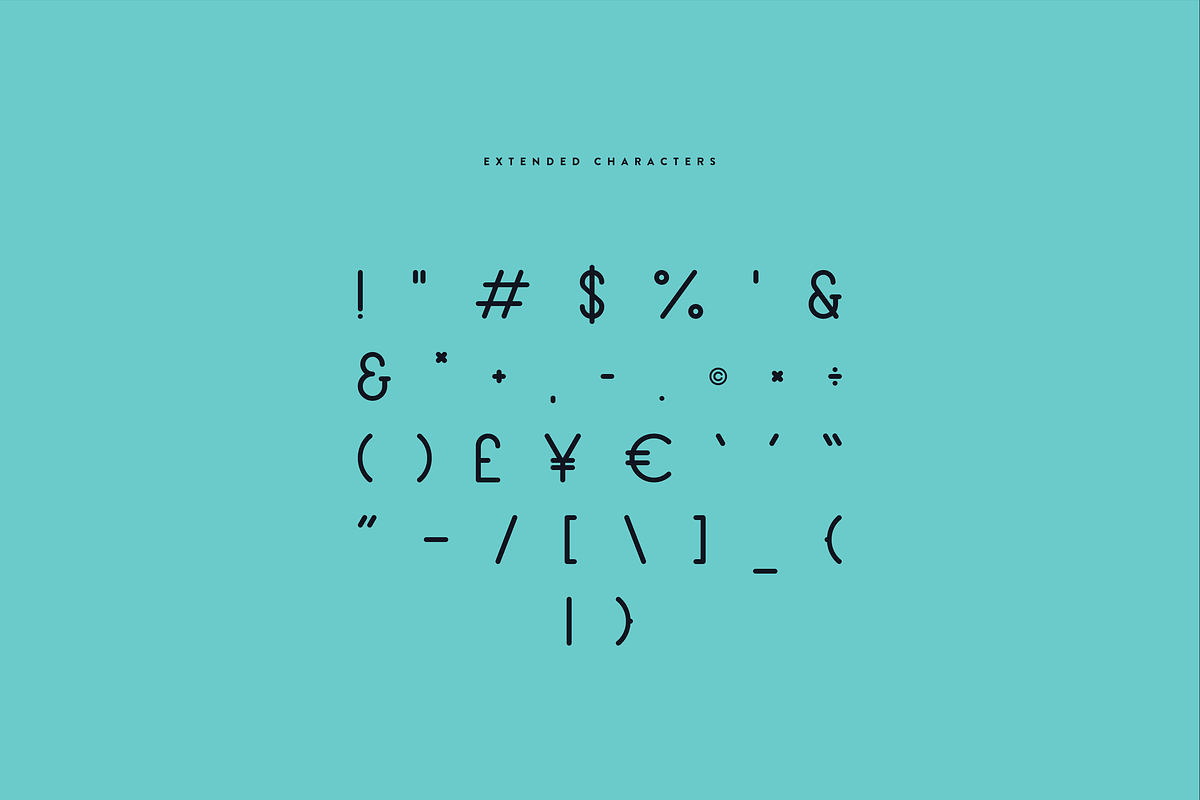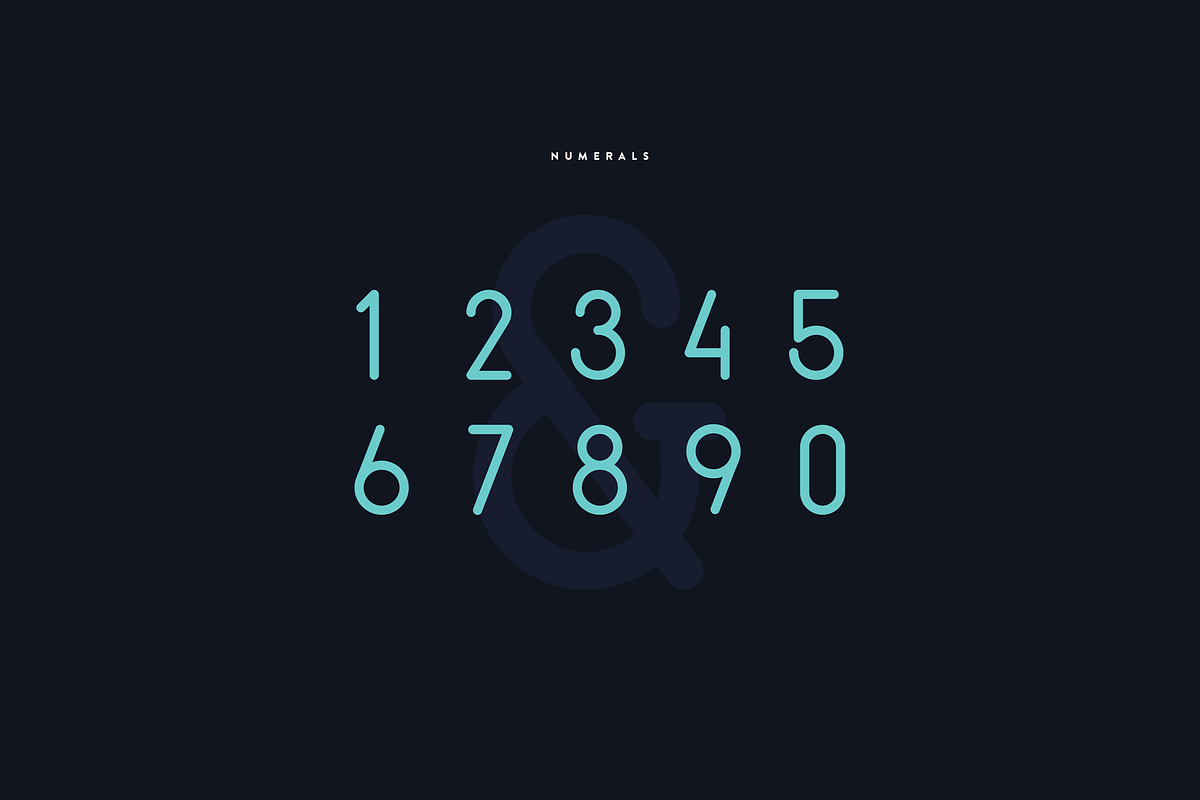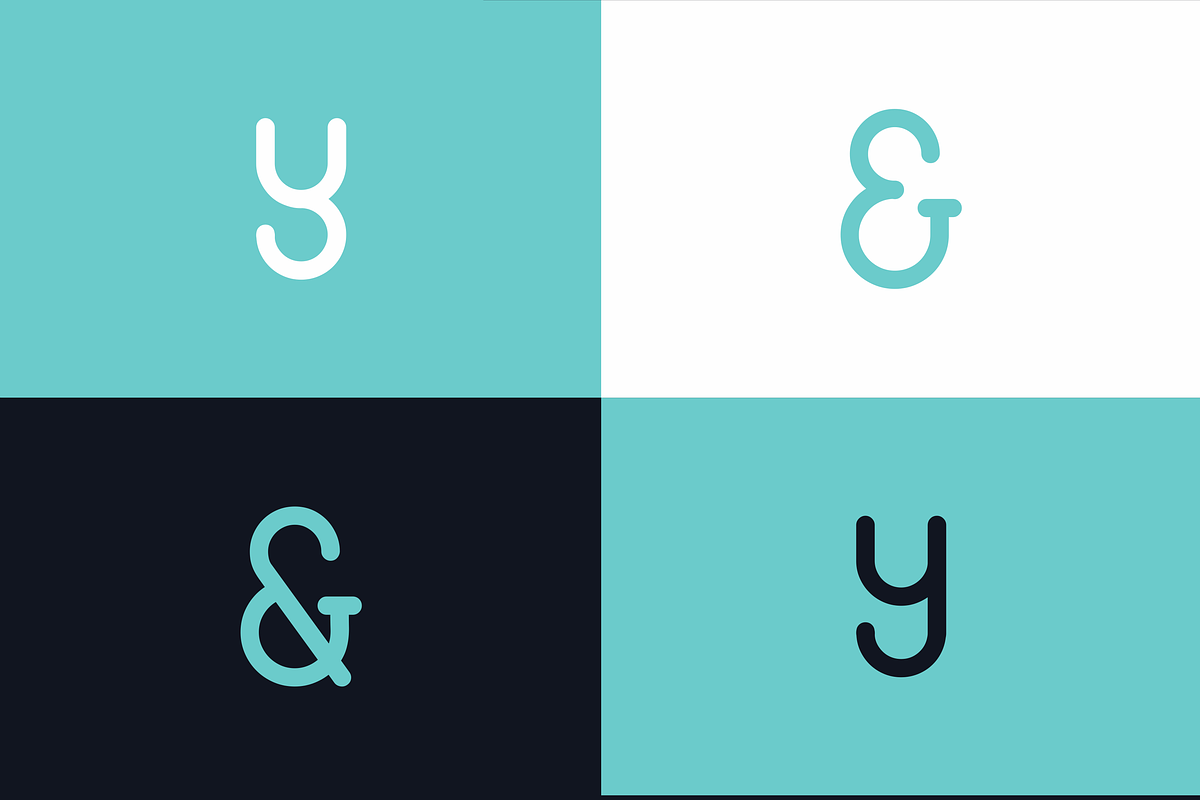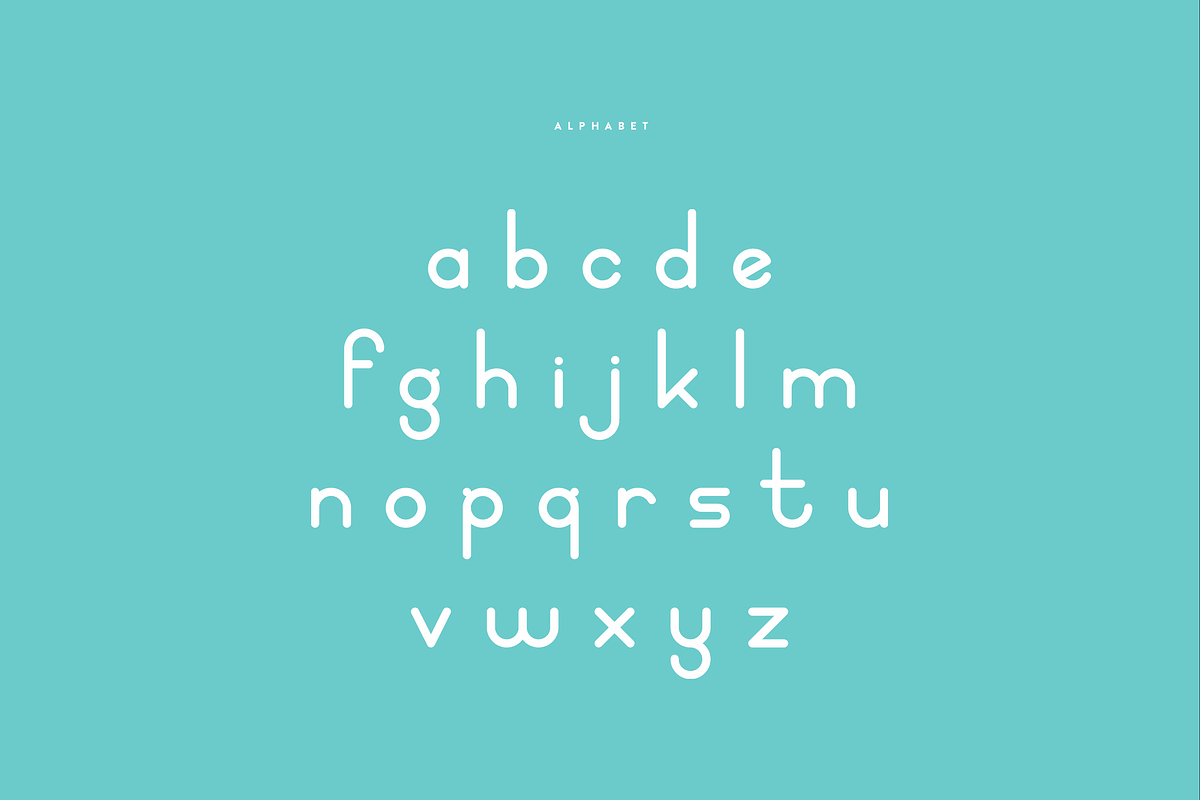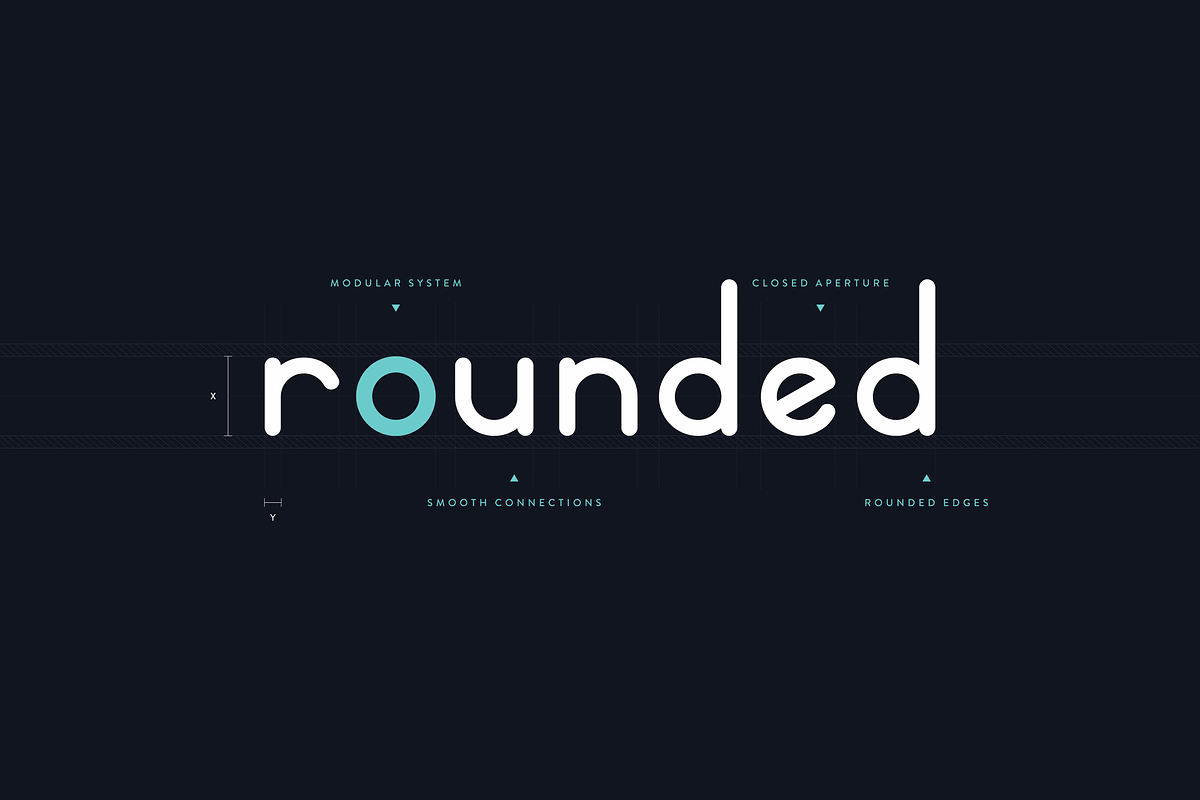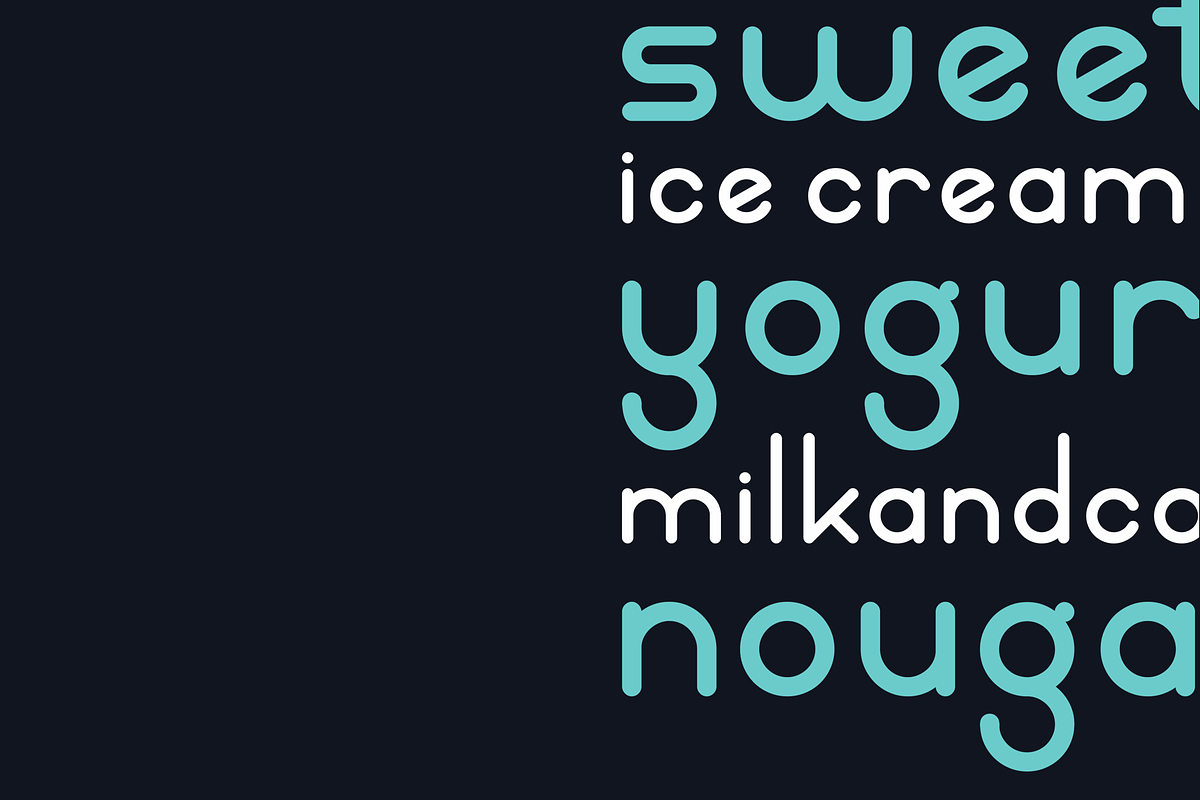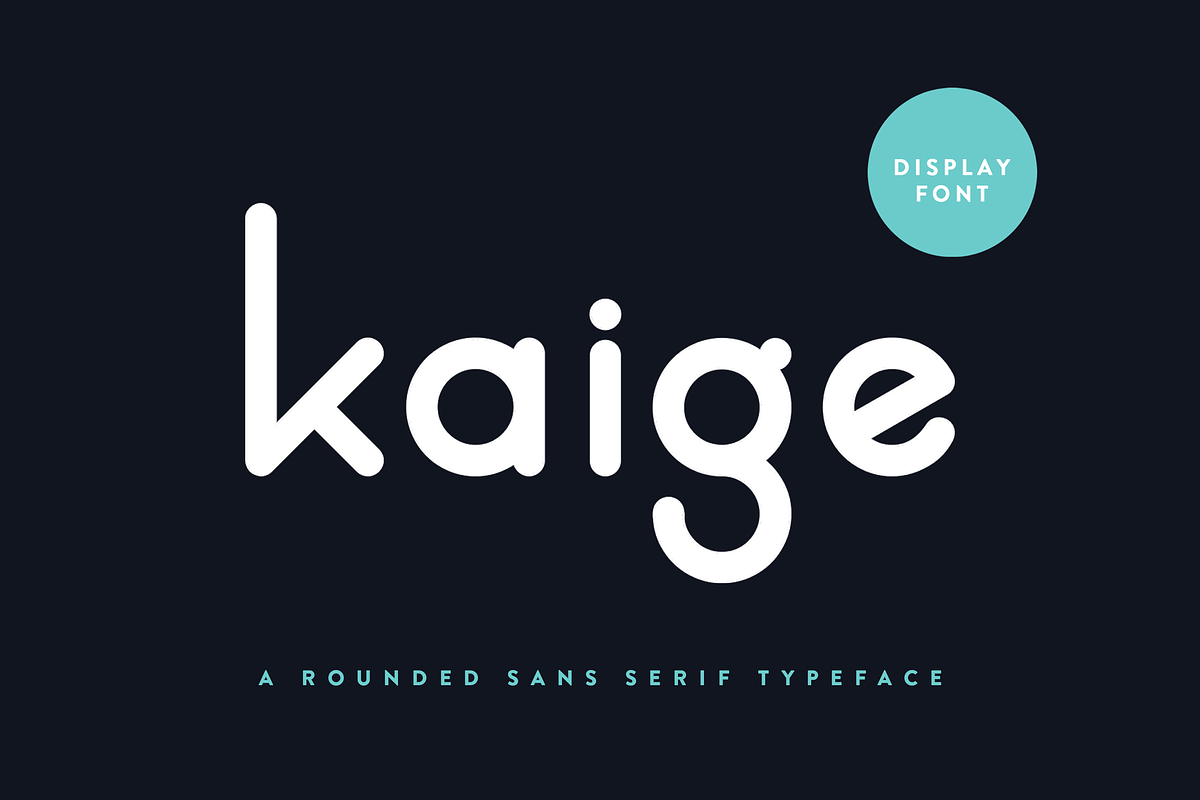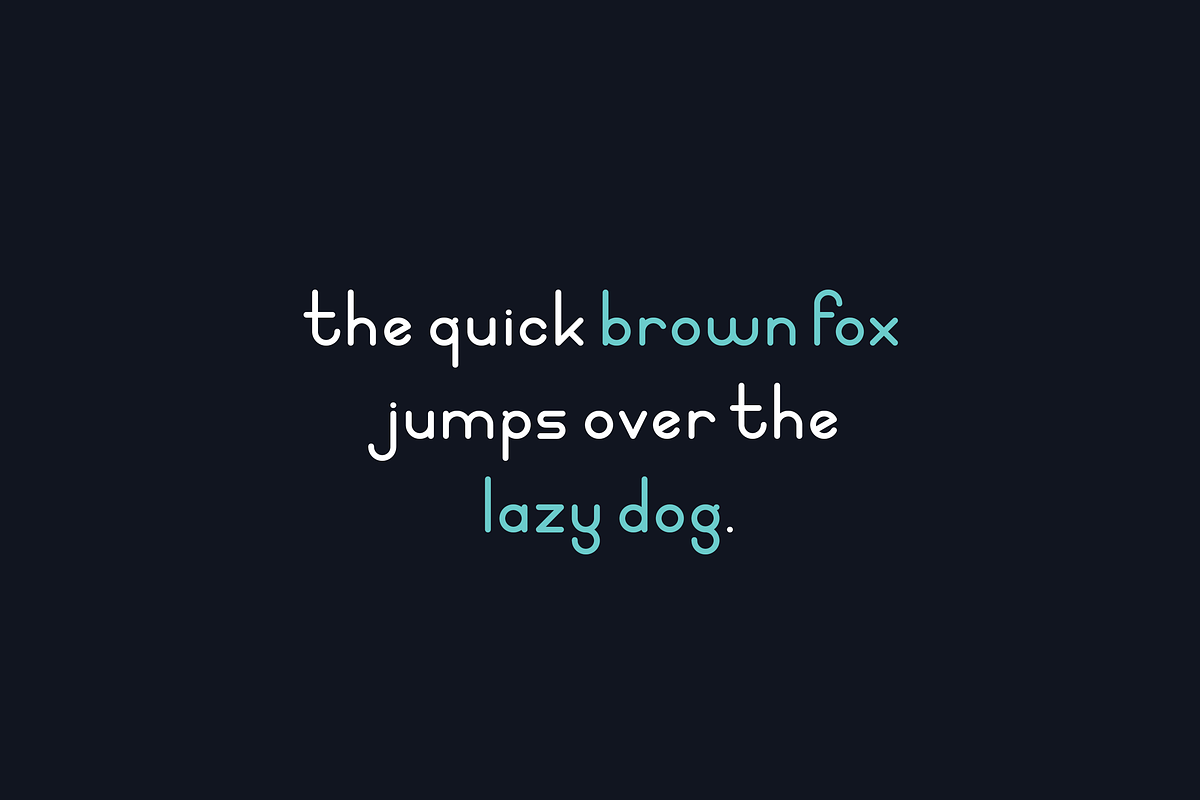
KAIGE | Display Font
KAIGE™ is a rounded typeface inspired by playful curves and circular forms.
It has a simple, soft structure with a strong emphasis on its rounded terminals. Its clean lines, smooth forms, unique shape and proportions gives the face a dynamic, sweet and friendly child-like aura, yet, in a complete paradox in itself, also lends a bold and modern feel.
It is a single-weight typeface with a total of 108 characters / glyphs that includes: